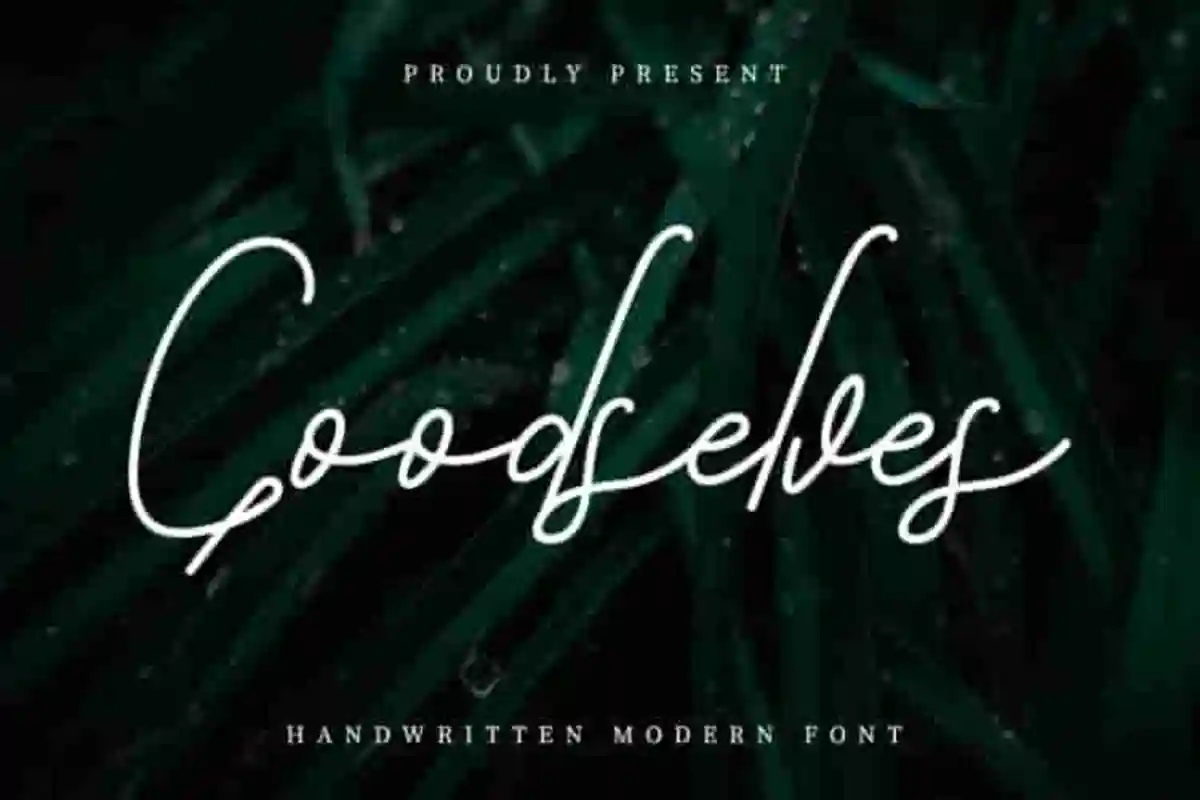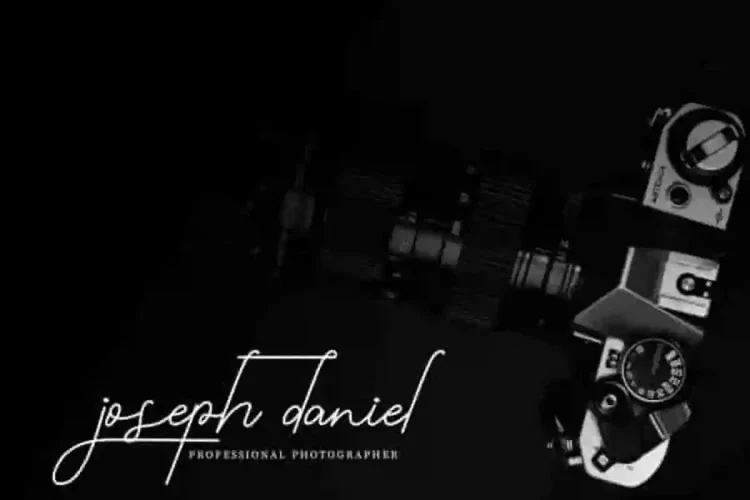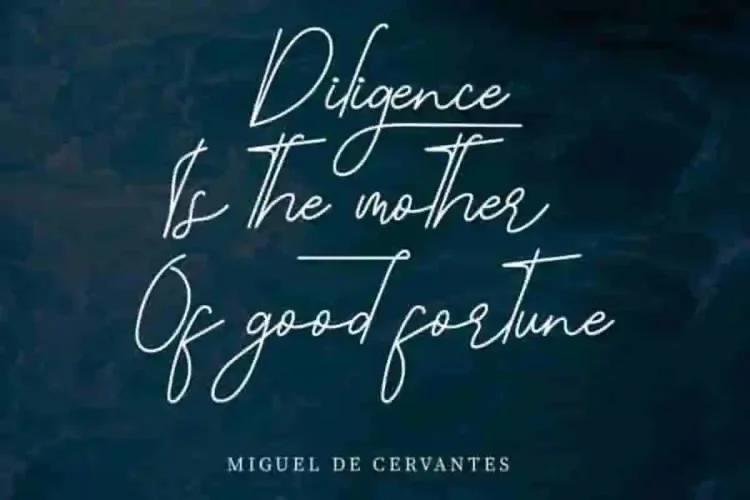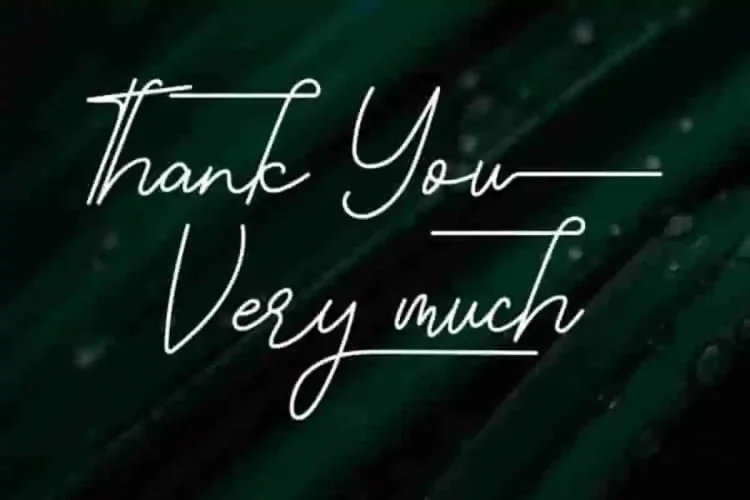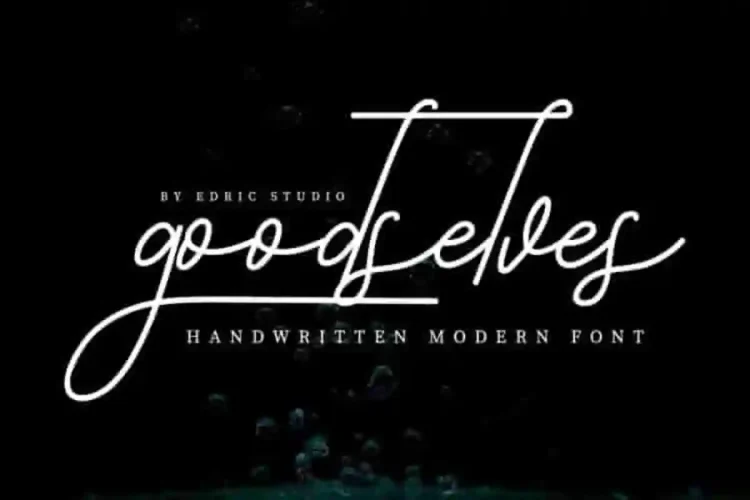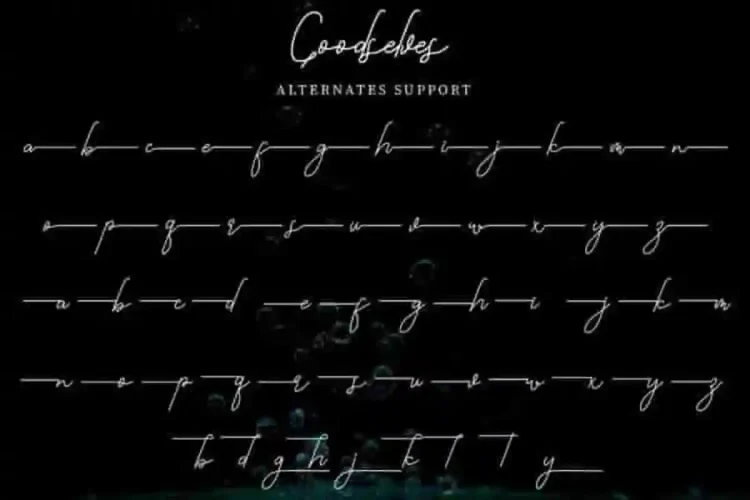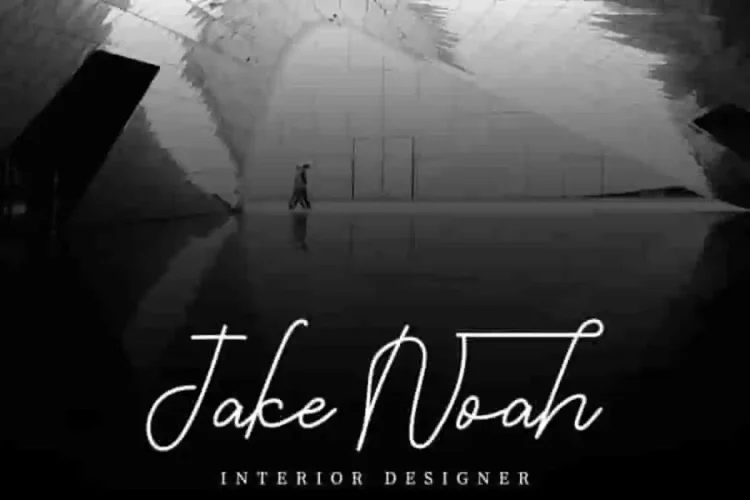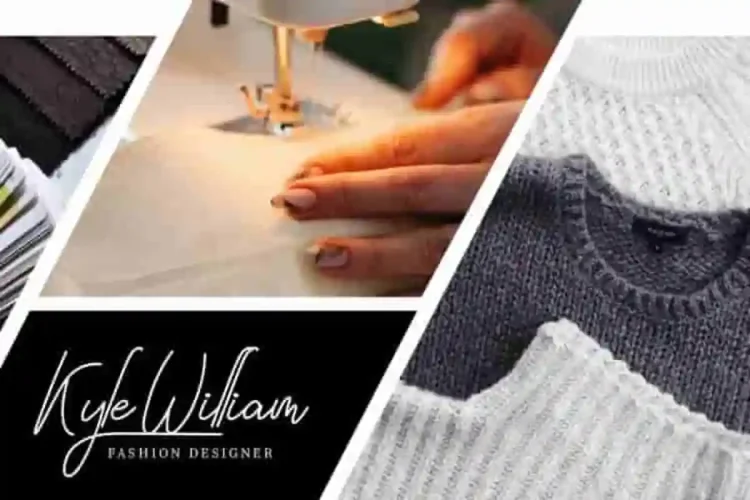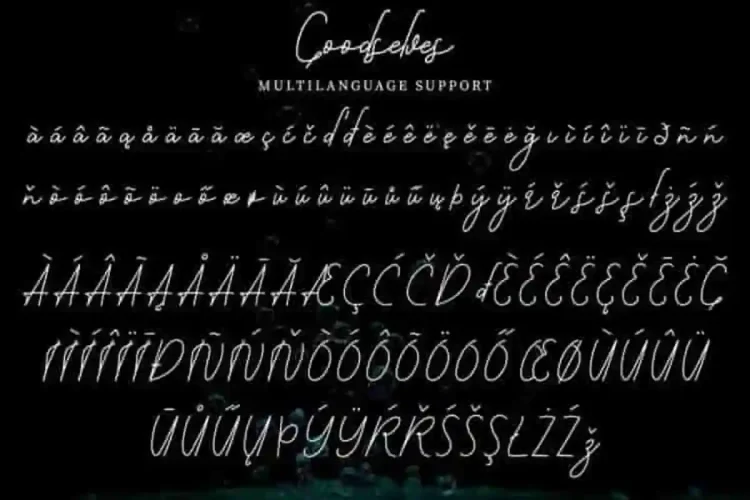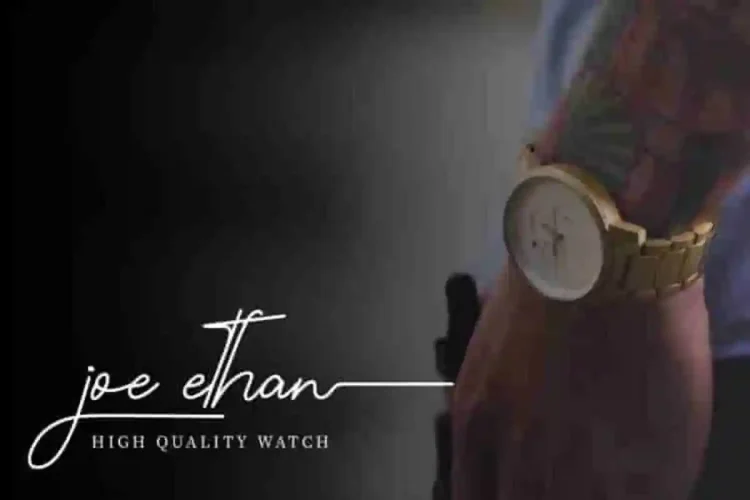
Goodselves Calligraphy Script Font
This is a signature font, handcrafted from our Studio here in, Indonesia. The artists/designers of this beautiful tyeface is Widi and Suci.
Goodselves Calligraphy Script Font is an exclusive calligraphy script typeface with natural  style. This font has a stunning characters set, perfectly managed with well spaced and kerning. The theme style of this font will be simple, elegant,  vintage and classic signature style.
Goodselves Calligraphy Script Font will be great for any projects (with exntended license) including : branding, logo, stationery, business card, signage, flyer, brochure etc. Almost all industries will be match for this typeface: wedding, events, real estate, architect, law firm, florist, gardening, makeup artist, travel, hotel, musician etc.